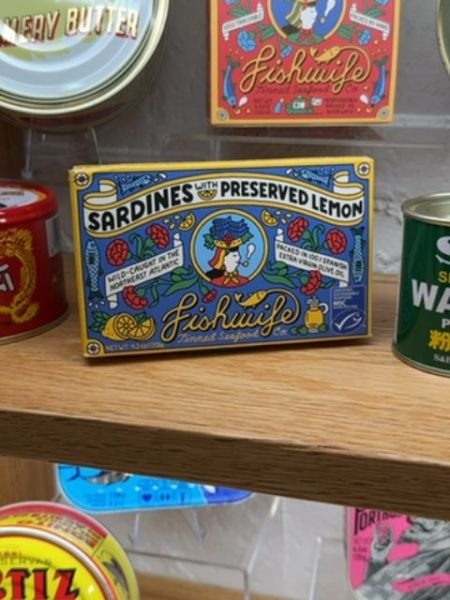
Sardines with Preserved Lemon
A seafood product consisting of wild-caught sardines preserved with lemon, offering a zesty and fresh flavor.
The typography features a bold, sans-serif font for the main product name, creating a clear and modern look. Complemented by a script font for the brand name 'Fishwife,' it adds a touch of elegance and vintage appeal, emphasizing the artisanal nature of the product.
The packaging is vibrant and colorful, with an intricate decorative design that includes floral and nautical motifs. It has a vintage aesthetic, utilizing a blend of saturated colors that draws attention.
- Wild-caught sardines.
- Preserved with lemon for enhanced flavor.
- Packaged by Fishwife, known for gourmet tinned seafood.